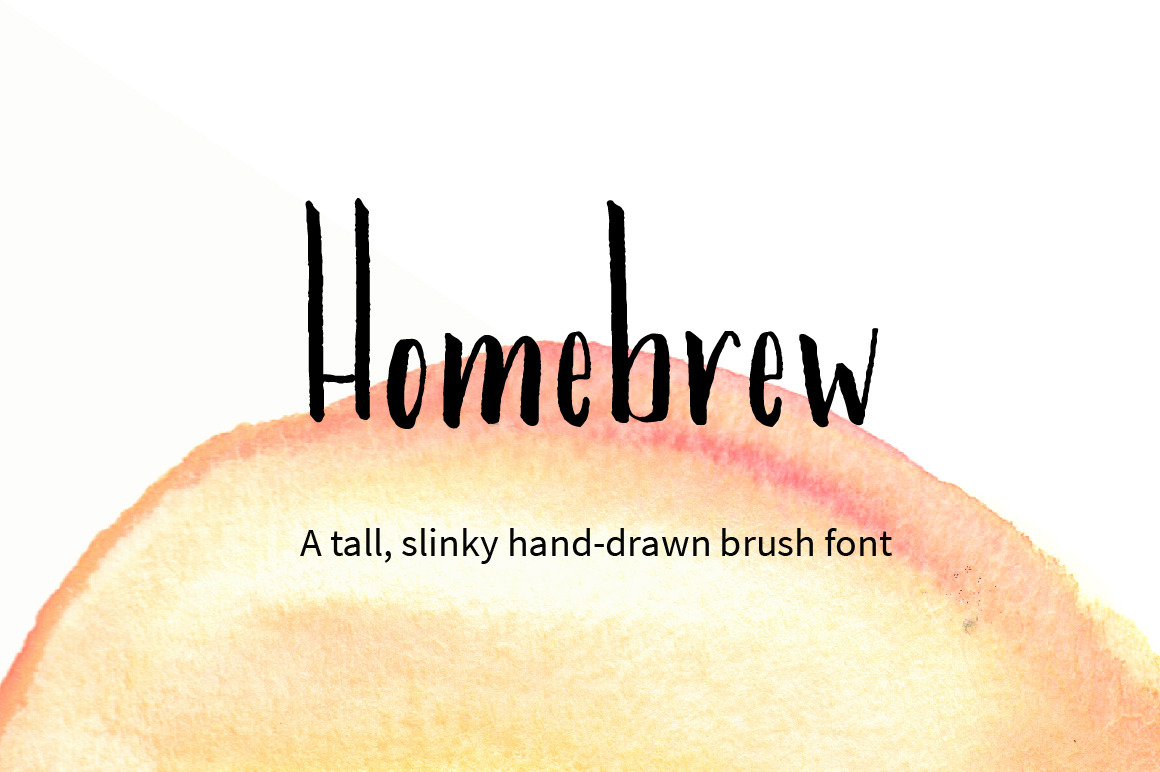
Homebrew Font
The Homebrew font is a perfect way to add a hand drawn lettering touch to your designs, whether you use it on the web, on a printable greeting card, in a scrapbook, or elsewhere.
The font was carefully created by hand using a thin brush marker and features a comprehensive set of glyphs including uppercase, lowercase, numeric, and symbols.
This font is the moodier, slinkier older sister of my popular font, Paperweight (http://crtv.mk/r0PZp)
Add this quirky hand lettered font to your font repertoire and use it for any number of occasions.